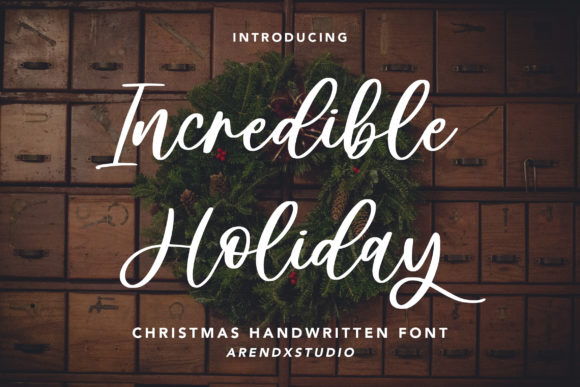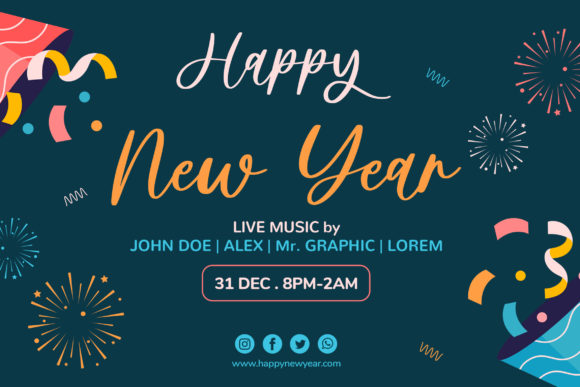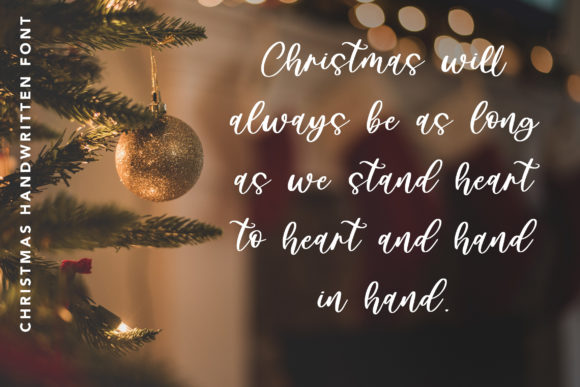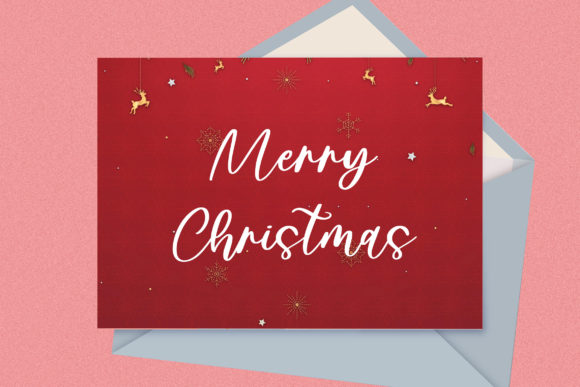
Incredible Holiday Font
About Incredible Holiday Font
Incredible Holiday is a lovely and delicate script font that exudes elegance and class. This font was particularly crafted for those who need a beautiful and refreshing look to their designs.